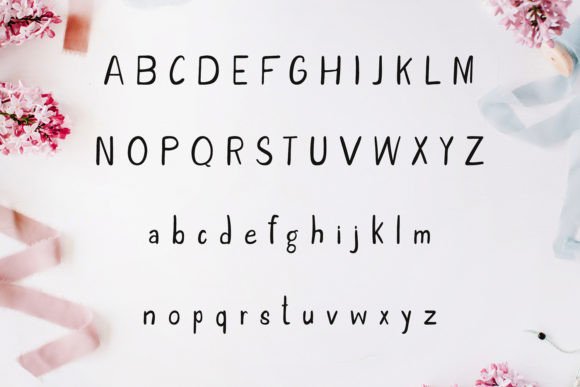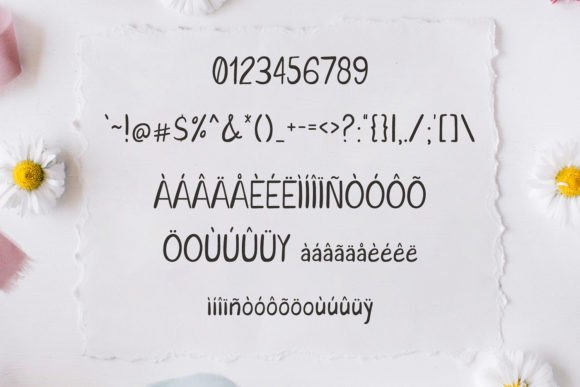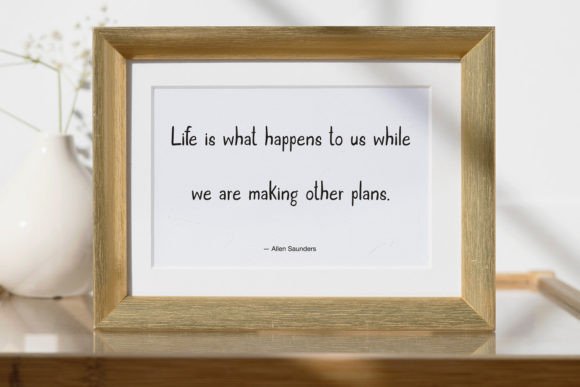
Introduction to Madelin Font
Madelin is a trendy and cute handwritten font that will look like a real piece of art in various designs.
It will be perfect for packaging, presentations, logo, headlines, lettering, posters, branding, quotes, titles, magazine headings, web layouts, advertising, invitations, packaging design, books, and nearly any creative design .
Key Features of Madelin Font